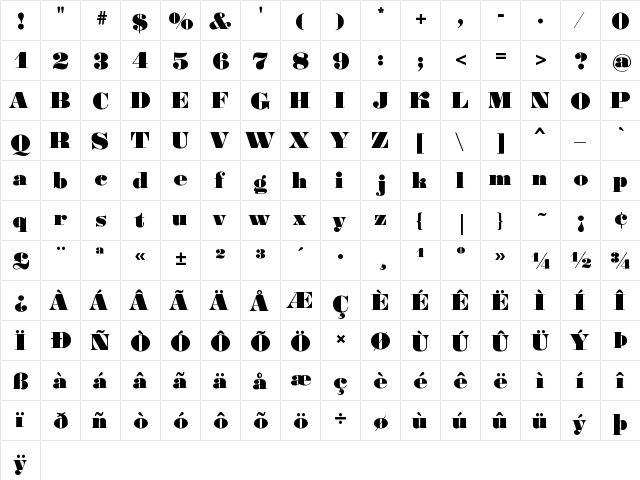
Gourmandise Bold
Design Context for Gourmandise Typeface
Gourmandise takes a measured approach to typography — its balanced proportions and neutral character make it a reliable workhorse for both digital and print work. The heavy weight commands attention and anchors typographic hierarchies.